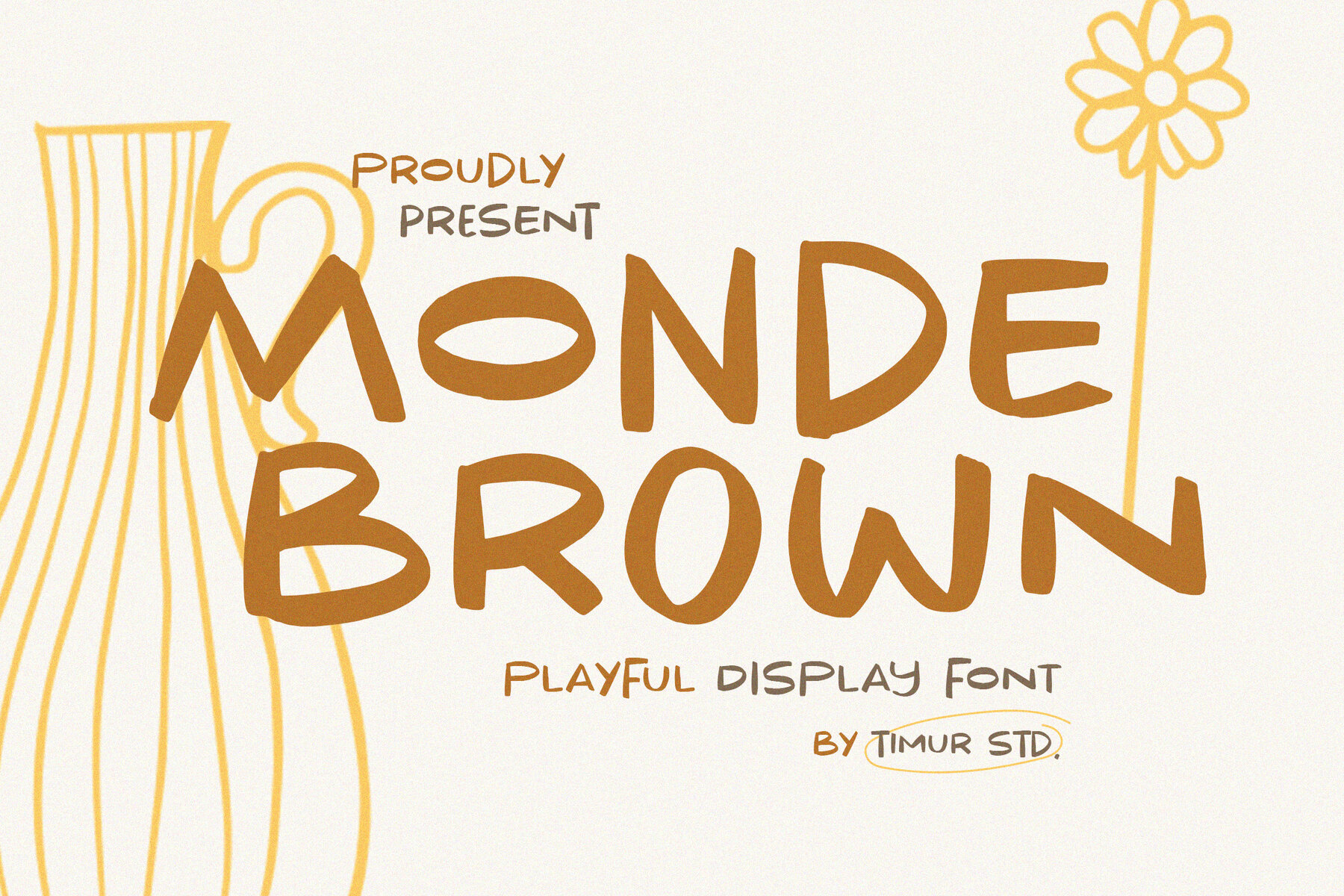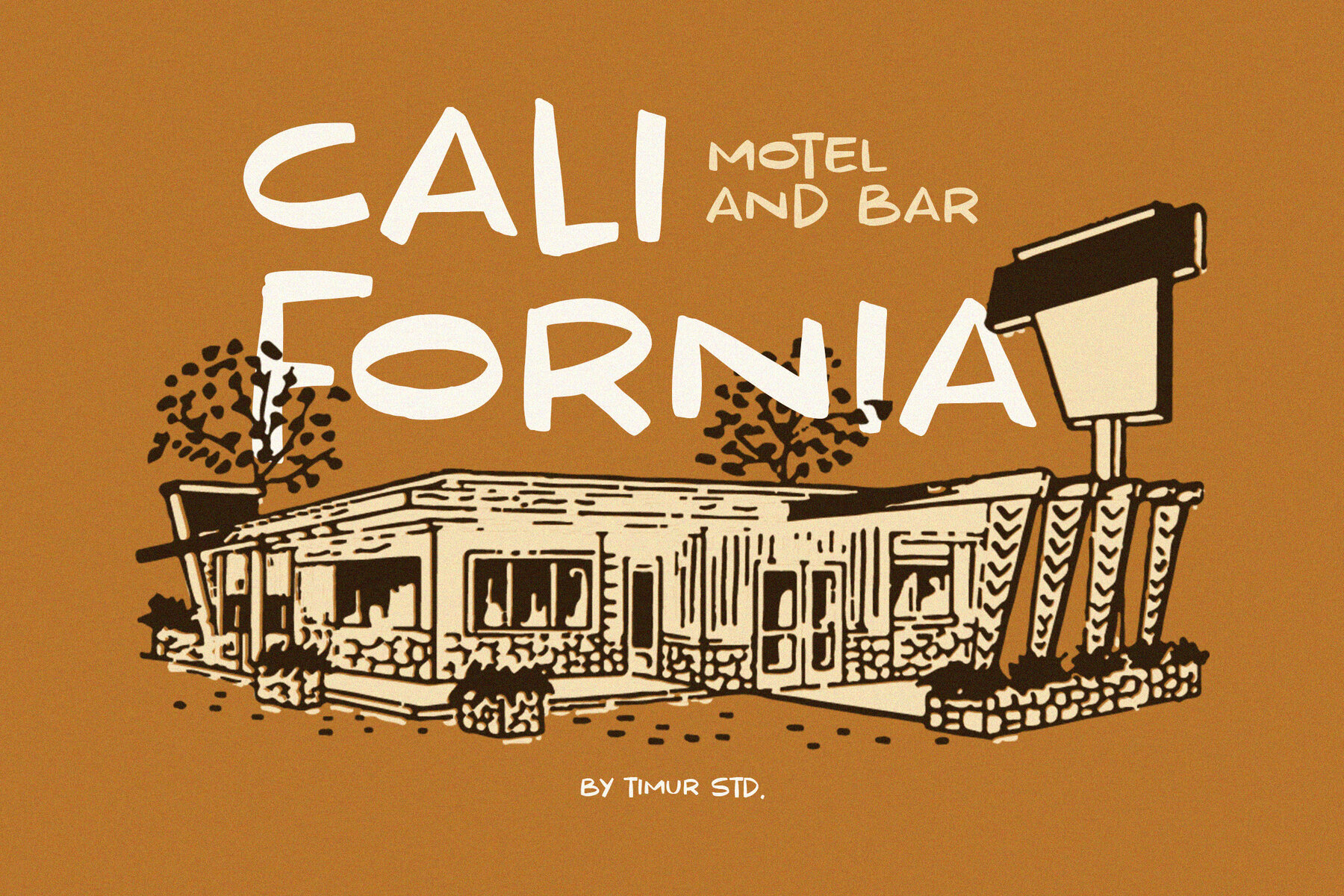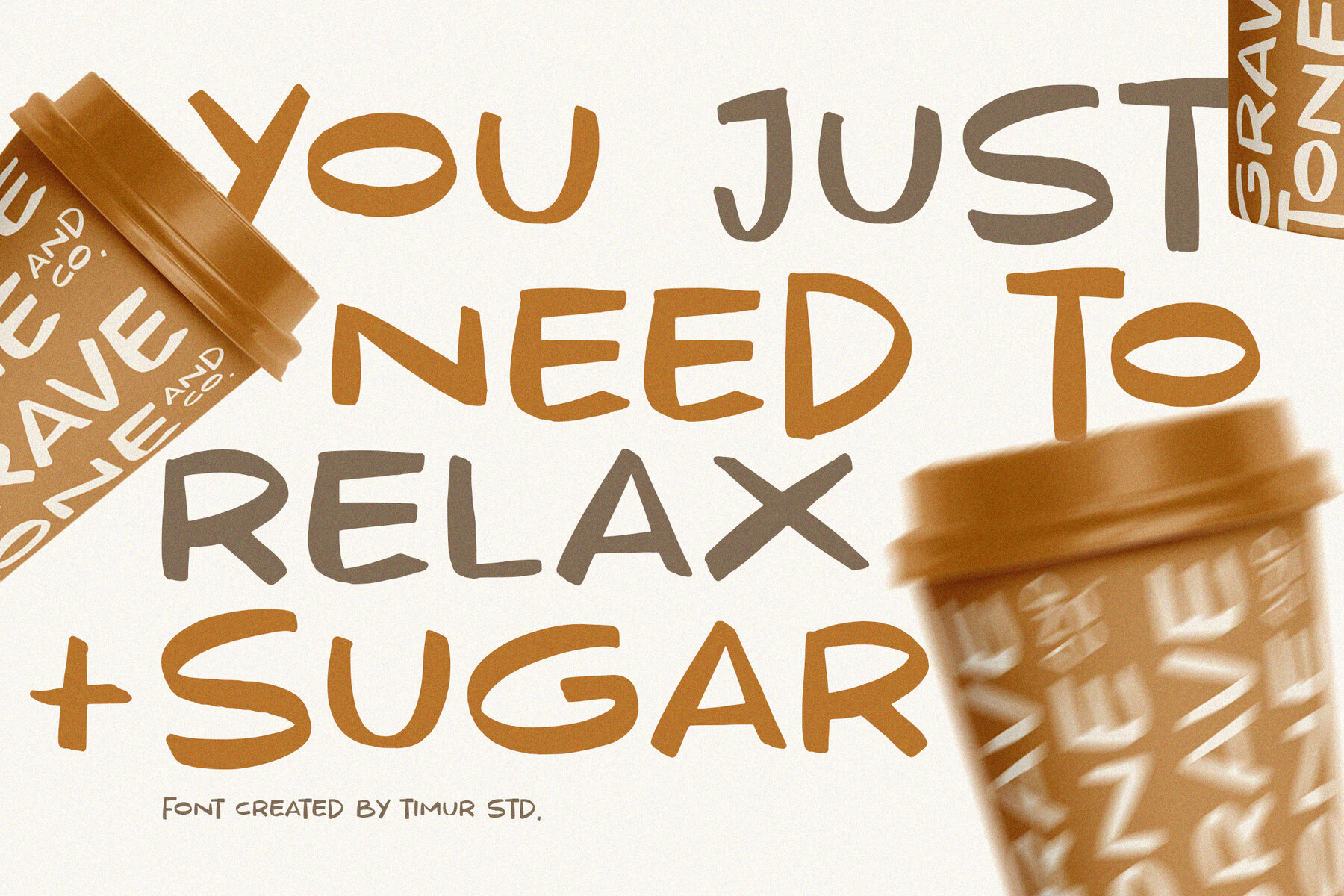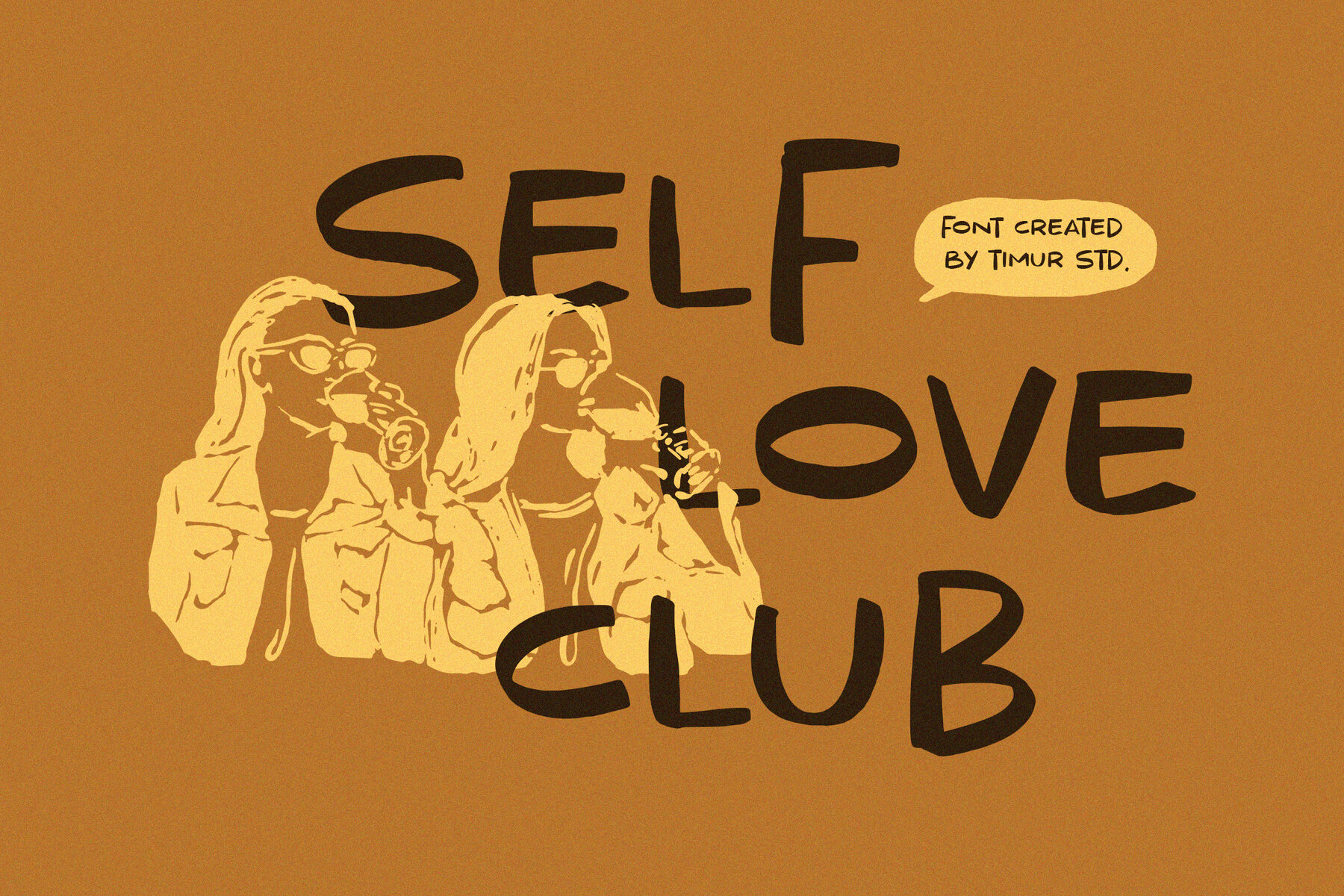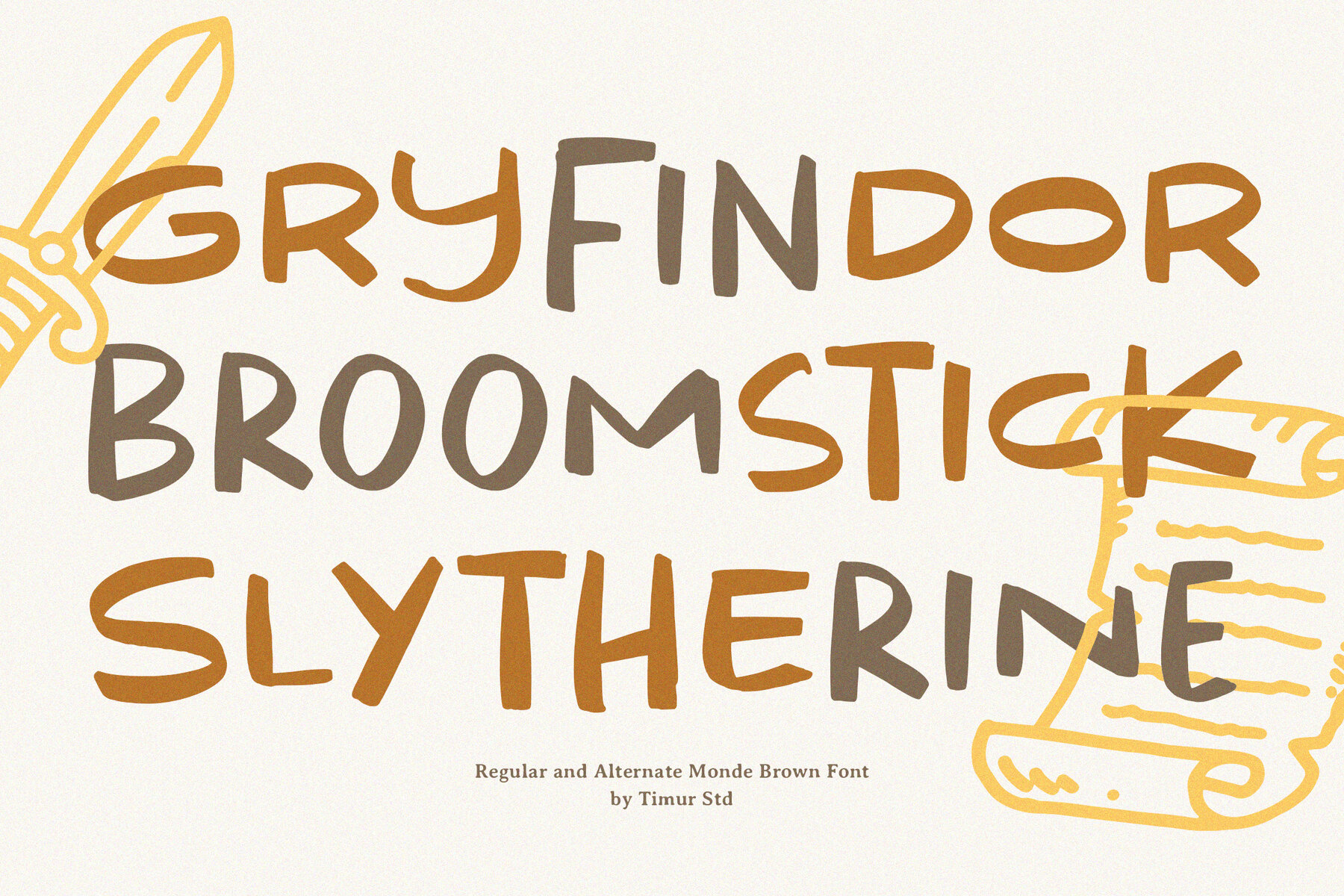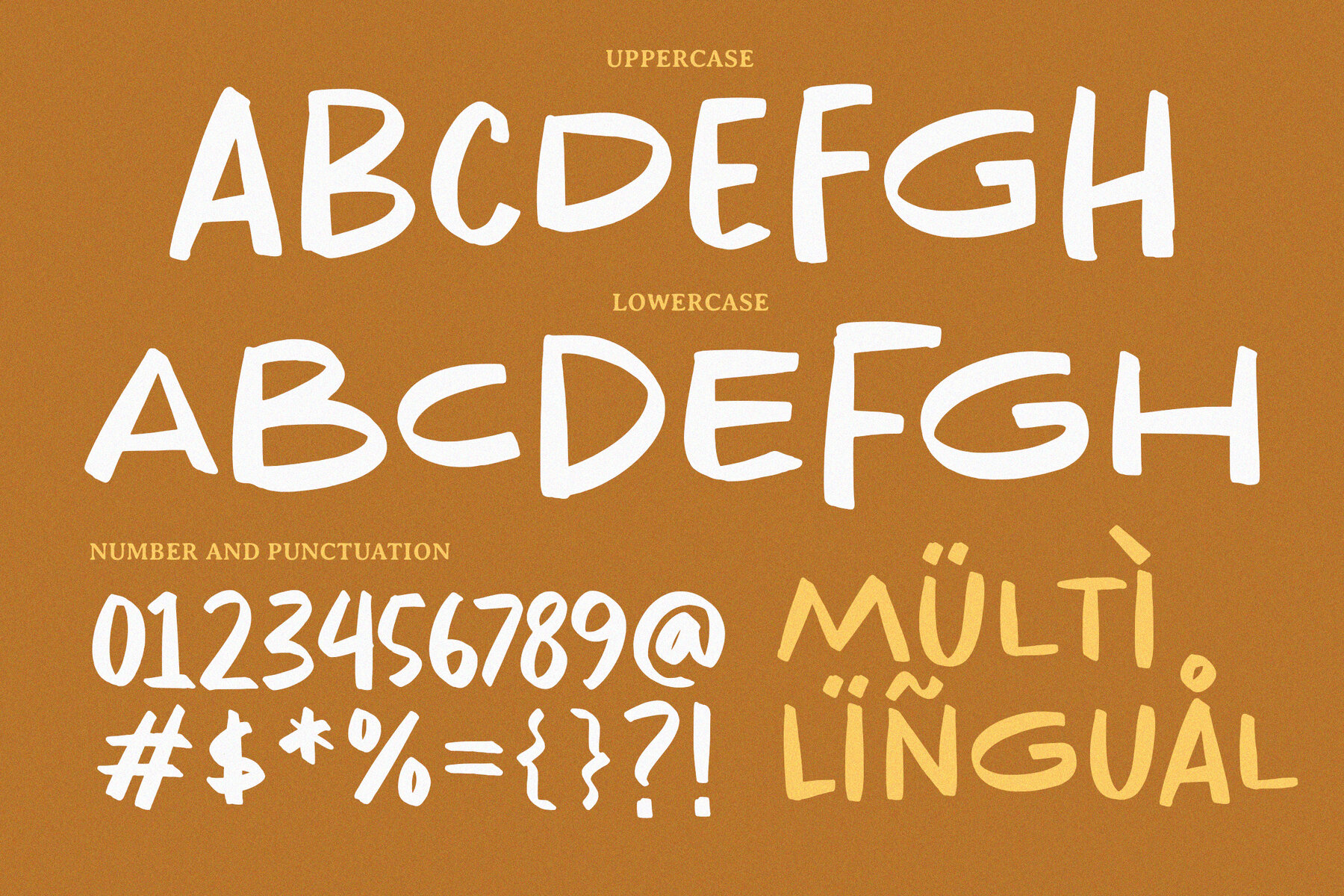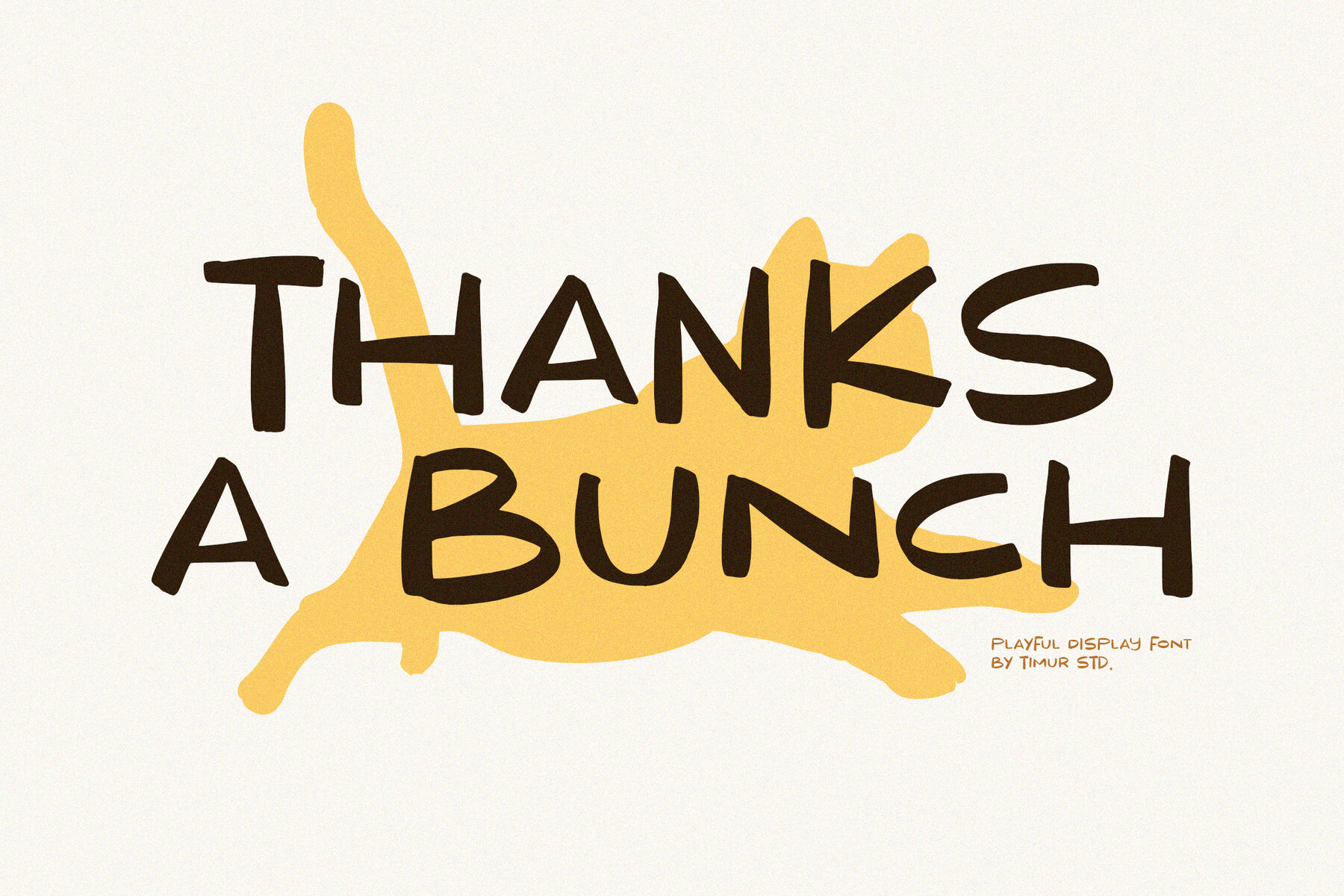
Monde Brown Font
Monde Brown
Monde Brown is a dynamic display font crafted to infuse a lively and engaging atmosphere into your design projects. Its bold aesthetic paired with rounded edges makes it perfect for a range of applications, including branding, headlines, logos, and editorial designs.
This font's playful nature allows for creative and fluid combinations, elevating the visual appeal of your work. With Monde Brown, you'll bring a unique and spirited touch to any project, ensuring your designs stand out with style and character.